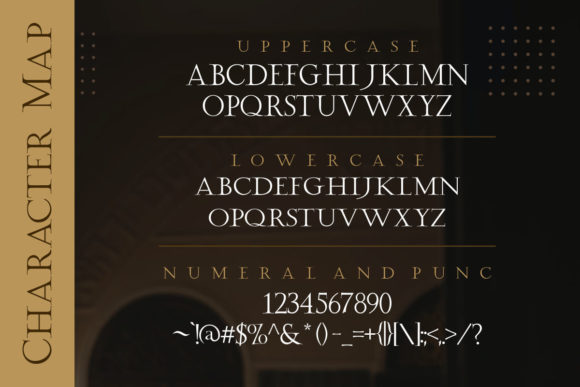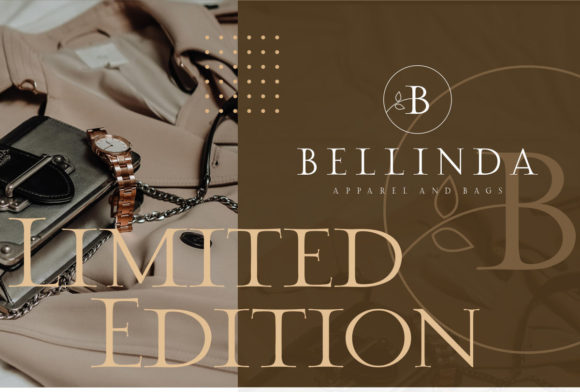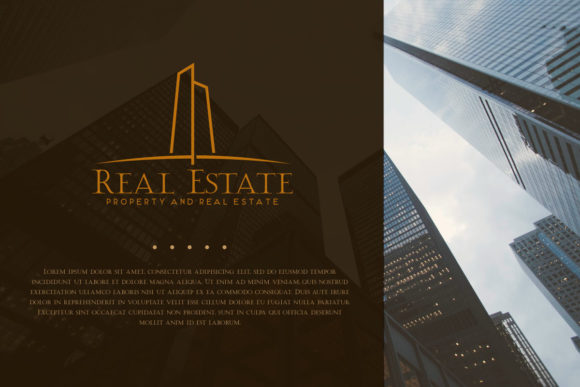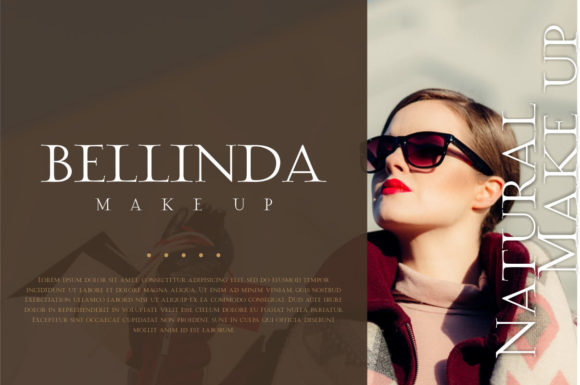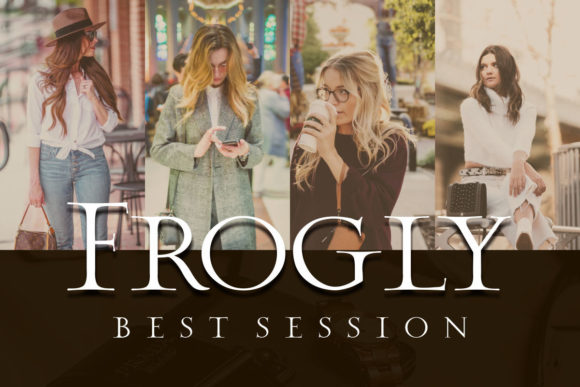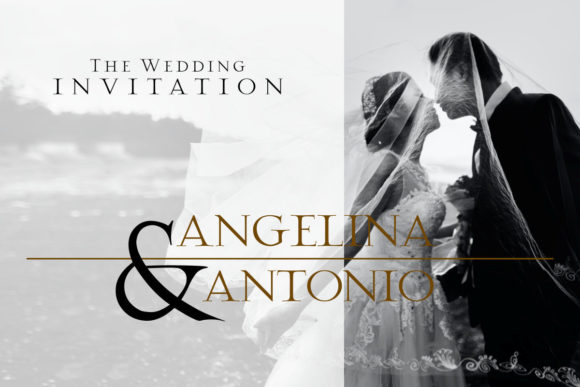
Frogly Font: Elevate Your Designs with Luxurious Typography
In the world of typography, fonts play a crucial role in conveying the tone and personality of a brand or design. For designers and crafters looking to add a touch of luxury and sophistication to their projects, Frogly Font is an excellent choice. This unique and stylish serif font is suitable for a wide range of applications, from logos and invitations to branding, apparel designs, and more.
What Makes Frogly Font Stand Out?
Frogly Font boasts a distinctive serif design that exudes elegance and refinement. Its luxurious feel makes it perfect for projects that require a high-end aesthetic. The font’s unique characteristics include:
- Classic Serif Design: Frogly Font features a traditional serif design with a modern twist, making it versatile and timeless.
- Luxurious Feel: The font’s elegant lines and curves evoke a sense of sophistication, perfect for luxury brands and high-end designs.
- High Versatility: Frogly Font can be used for a wide range of projects, from print materials to digital applications.
Use Cases for Frogly Font
Frogly Font is an excellent choice for various design projects, including:
- Logos: Create a lasting impression with a luxurious logo that showcases your brand’s personality.
- Invitations: Add a touch of elegance to your invitations, whether it’s for a wedding, gala, or corporate event.
- Branding: Establish a strong brand identity with Frogly Font, perfect for luxury brands, high-end products, and services.
- Apparel Designs: Elevate your fashion designs with a sophisticated font that adds a touch of luxury to your creations.
Why Designers and Crafters Love Frogly Font
Designers and crafters appreciate fonts that are both stylish and versatile. Frogly Font meets these requirements, offering:
- Easy to Read: The font’s clear and legible design ensures that your message is conveyed effectively.
- Customizable: Frogly Font can be easily customized to fit your project’s specific needs, from adjusting font sizes to experimenting with different colors.
- Time-Saving: With Frogly Font, you can quickly create professional-looking designs without spending hours on typography.
Tips for Using Frogly Font Effectively
To get the most out of Frogly Font, consider the following tips:
- Pair with Complementary Fonts: Combine Frogly Font with sans-serif fonts or script fonts to create a visually appealing contrast.
- Experiment with Colors: Try different colors and gradients to add depth and dimension to your designs.
- Pay Attention to Spacing: Ensure that your text is easily readable by adjusting the spacing between letters and lines.
Frogly Font is a luxurious serif font that can elevate your designs to the next level. Its unique and stylish design makes it perfect for a wide range of projects, from logos and invitations to branding and apparel designs. With its versatility, readability, and customizability, Frogly Font is an excellent choice for designers and crafters looking to add a touch of sophistication to their work.
Whether you’re a seasoned designer or a crafty enthusiast, Frogly Font is sure to inspire your creativity and help you create stunning designs that leave a lasting impression.